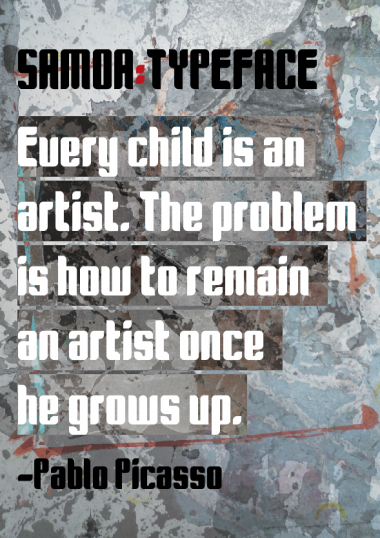
I like it a lot.
I would only change the & to look less like an 8 by not letting the upper arm/loop to touch the lower bowl, but you have the final word.
And that is quite an eye catching sample :)
That's great.
I really haven't started to get my head round all this filter wizardry ... it's all clever stuff :-)
Congratulations! FontStruct Staff have deemed your FontStruction worthy of special mention. “Samoa” is now a Top Pick.
big but gentle. this set has a very organic and subtle feel - especially nice for such a bold font. your use of filters is seamless. very striking yet understated. congrats.